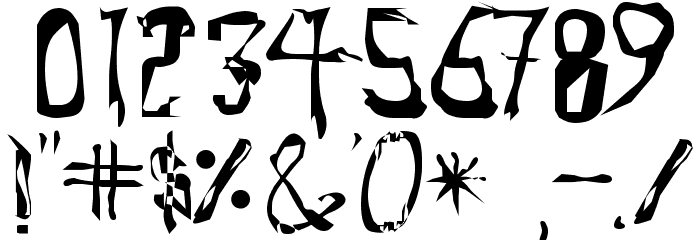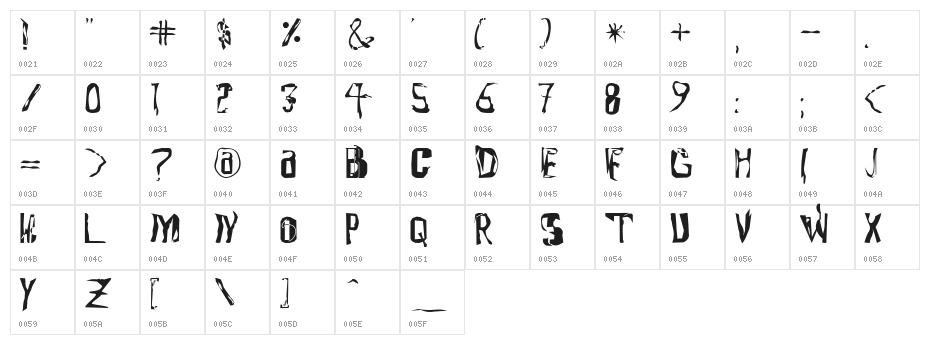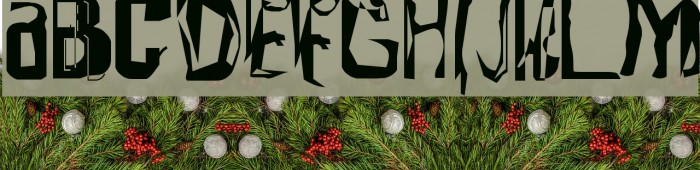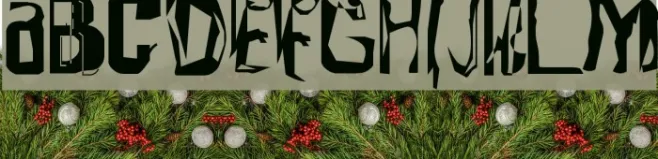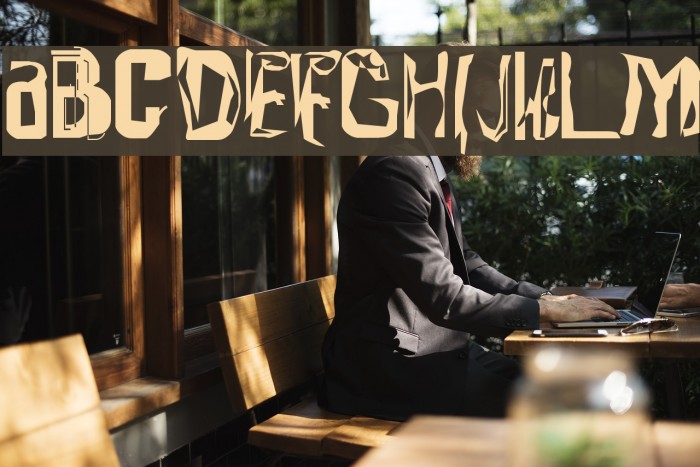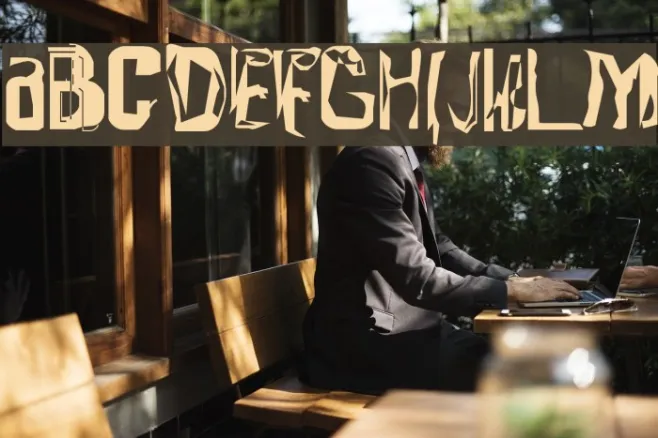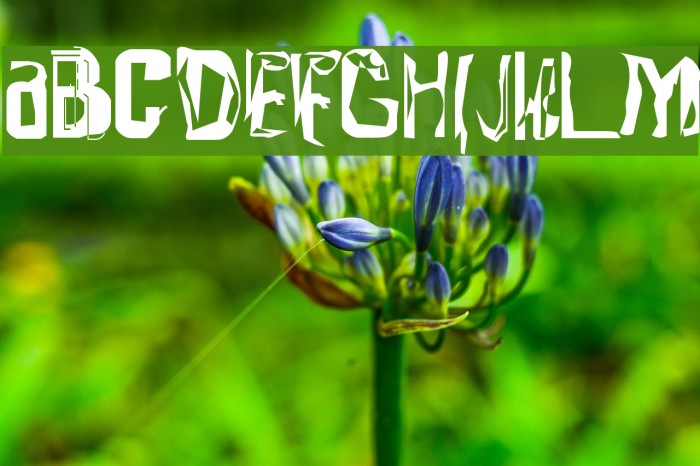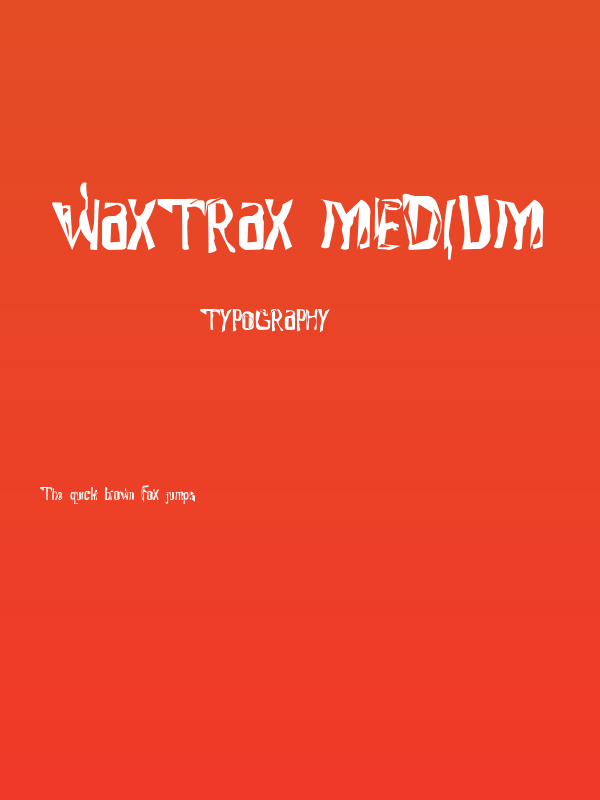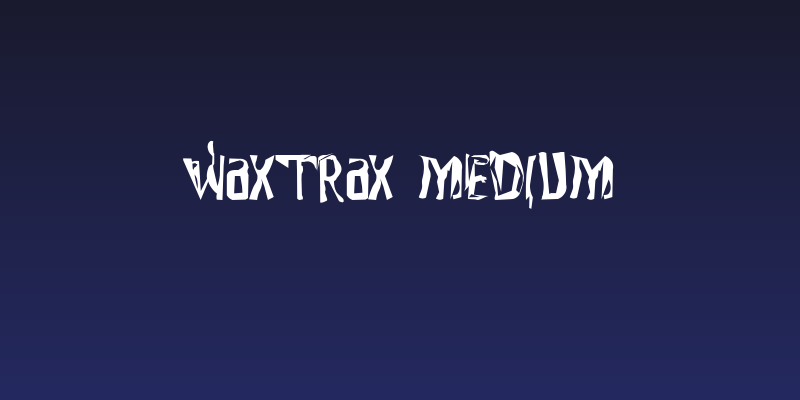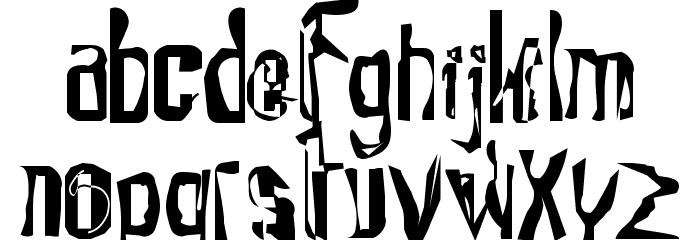
Waxtrax Medium Font
Waxtrax Medium Description
This font exhibits a highly decorative and abstract style, characterized by its fragmented and distorted letterforms. Each character appears as if it has been shattered and reassembled, creating a chaotic yet intriguing visual effect. The uppercase and lowercase letters maintain a consistent level of distortion, while the numerals and special characters follow the same design principle, ensuring uniformity across the typeface. The font's unique appearance makes it stand out, offering a bold statement in any design project. Its irregular shapes and sharp angles contribute to a sense of movement and energy, making it suitable for projects that aim to capture attention and convey a sense of edginess or rebellion.
| Overall Style | Modern, Edgy |
| Proposed Projects | Ideal for album covers, poster designs, and branding for edgy or alternative products. |